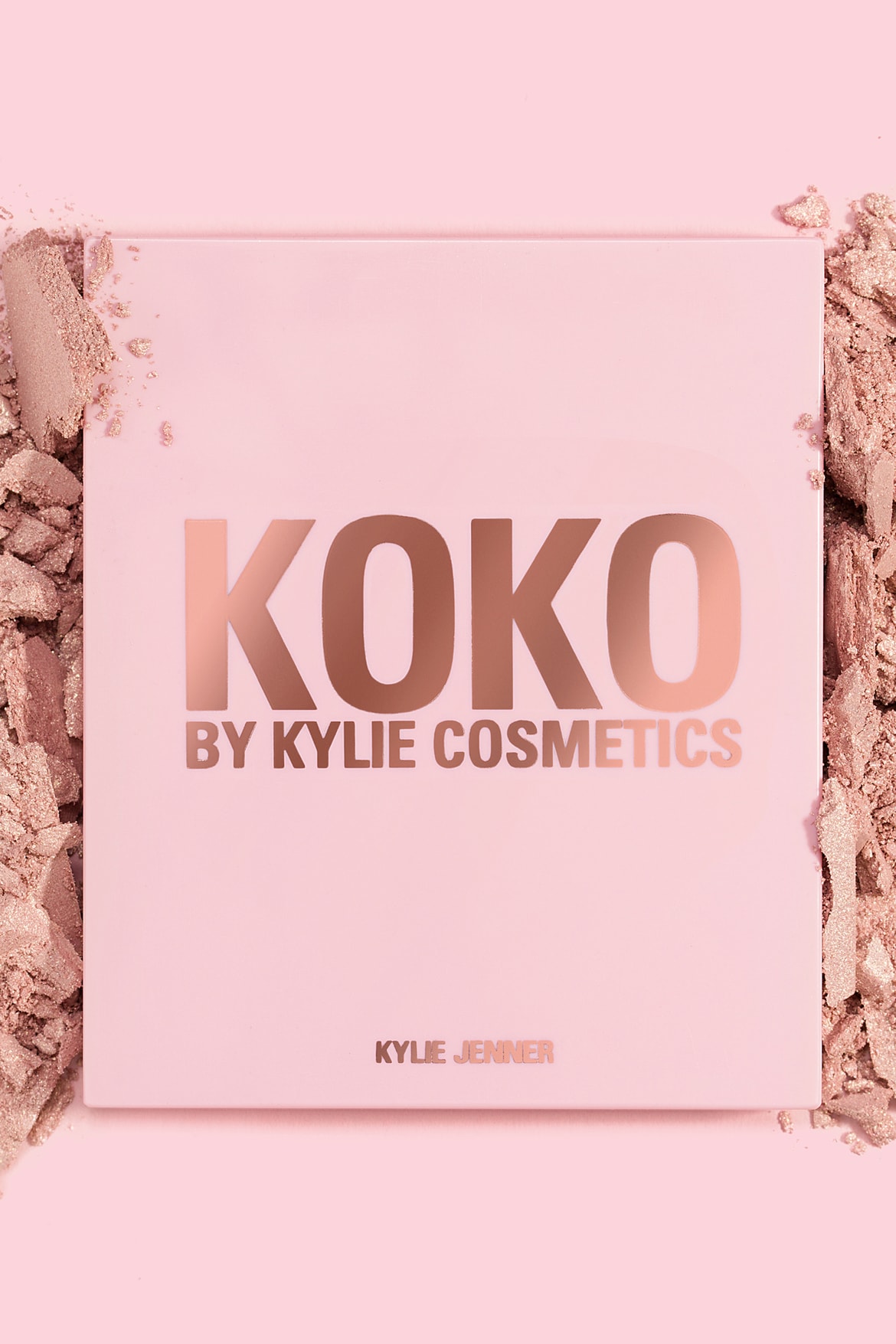
Kylie Jenner Logo Font
Kylie jenner logo font. Kylie Jenner went bigger and bolder in a peekaboo cutout crop top, black mom jeans and buzzy OffWhite x Air Jordan 1 Retro High sneakers Kylie Jenner Is Bold in a Cutout Crop Top & OffWhite x. This image logo is popularly known and seen through Jenner’s makeup line A sans serif typography compliments this dripping color design Its simple wordmark makes this logo even more recognizable The lipfocused design has to do with Jenner’s iconic pout, which has sparked challenges like the “Kylie Jenner lip challenge” in the past. Kendall Jenner FaceTimed with a mysterious ‘Harry’ in Kylie Jenner’s new vlog, and fans are arguing whether the face behind the screen was Harry Styles or Harry Hudson (or none of the above).
Kylie Jenner Lip Kit Logo Kardashian Makeup Vanity Lipstick Digital Print Picture Christmas Gift Kylie Cosmetics Logo Phone Case On The Hunt Kylie Cosmetics Wikidata Kylie Cosmetics Lip Liner Lipstick Png Clipart Angle Area Black Pink Background Png Download 1971 1185 Free Transparent Kylie Jenner Cosmetics Logo New White T Shirt. If a logo with a modern font were a person he or she would be a trendy young person who seems a bit aloof but cool, such as Kylie Jenner She uses a modern font for the logo of her billion dollar cosmetics brand Logos with modern fonts feel Strong Progressive Stylish Masculine Modern fonts are standard in the tech, fashion, and blogging. Fashion Celebrity Style Nov , 842AM PT Kylie Jenner’s Furry Mini Dress, ThighHigh Stockings & Clear Heels Give a Modern Twist on ‘The Grinch’.
It's very close to Bebas (Bebas neue or Bebas kai) but not quite the G and the K are different The G is pointed at the bottom, and the K's middle intersection is more central. It's hard to believe we ever lived in a world without Kim K & Co So in the spirit of taking a little trip down memory lane, here's what the cast of KUWTK looks like in their very first episode vs. Kylie Jenner ran into a bit of an issue when her twoyearold daughter, Stormi, refused to take out her new hoop earrings Continue to Hollywoodlife ( ) SKIP AD Hollywood Life Logo Image.
Business must be booming right now, especially since Kim Kardashian and KKW Beauty are reportedly being hit with a lawsuit of their very own the day after Kylie Jenner got served for her Lip Kit logo. Looking at Kylie Jenner's snap chat and she had on a mesh shirt with the innout logo but it says eatmeout Child You are 17 Chill — coolbreeeze (@coolbreeeze_) July 26, 15 kylie jenner posting pics of herself in a shirt that says "eat me out"what is wrong with kids these days — Nick C (@NickCRSEN) July 26, 15. Font Size Kylie Jenner’s boyfriend rapper Travis Scott really kicked things up another notch with the jawdropping diamond necklace he gave the reality star for her birthday The Kardashians” star showed off the incredible pink and white pavé diamond necklace featuring her cosmetic’s line logo of dripping lips,.
Pada hari Kamis 19 November , Kylie Jenner mengunggah video baru ke saluran YouTubenya untuk merayakan koleksi makeup liburan barunya KYLIE x GRINCH Video itu menunjukkan momen kebersamaan Kylie Jenner dan putrinya Stormi Webster, membuat cupcake yang berwarna hijau, terinspirasi Grinch ikon hijau Natal yang mencuri dan berubah menjadi. Free Kim Kardashian Logo Font vector EPS file, EPS file For Adobe Illustrator, Photoshop, Inkspace, Corel Draw and more Please, this file cannot be shared, copied, resold and distributed in its original format in any way Brandon Jenner, and reality TV star Brody Jenner, a foster sister Casey Jenner, and stepsisters Kendall and Kylie Jenner. Unique Kylie Jenner Lip Logo Stickers designed and sold by artists Decorate your laptops, water bottles, helmets, and cars Get up to 50% off White or transparent.